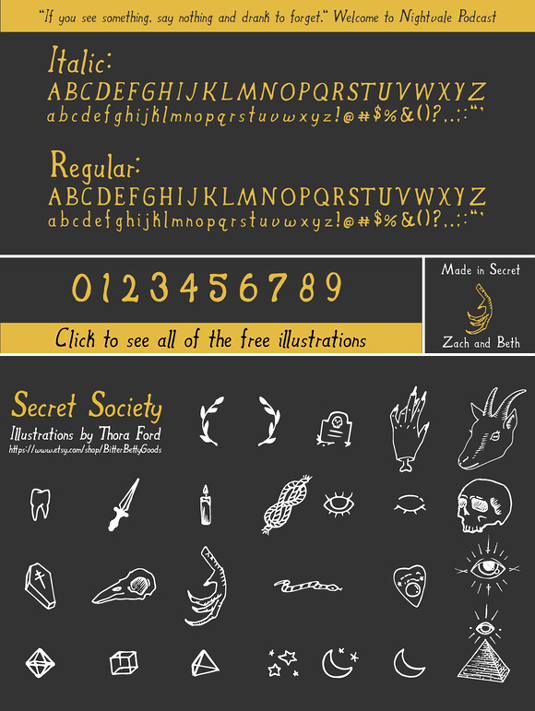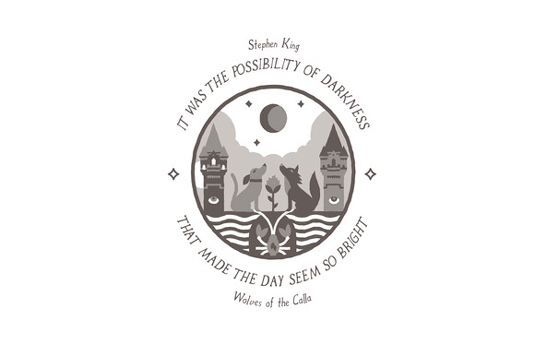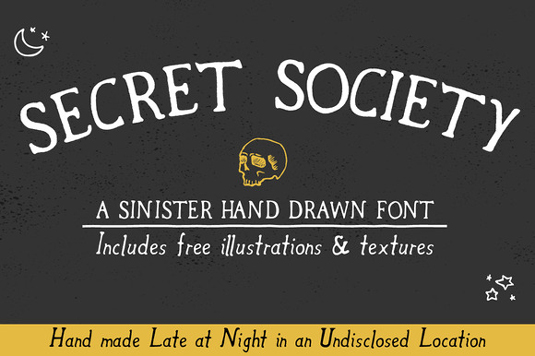
Font of the day: Secret Society
Secret Society by Zach and Beth
With Halloween just around the corner, typeface Secret Society could be just the thing for all your sinister designs. "Secret Society is a hand-drawn font inspired by shady dealings, nefarious henchmen and ghost stories," creators Zach and Beth comment. "Secret Society will look just as good on your awesome design as it will on your patent medicine label, tattoo, death threat, ransom note, wanted sign, tombstone, blood pact, etc.."